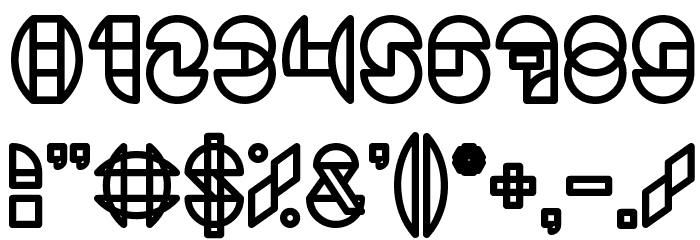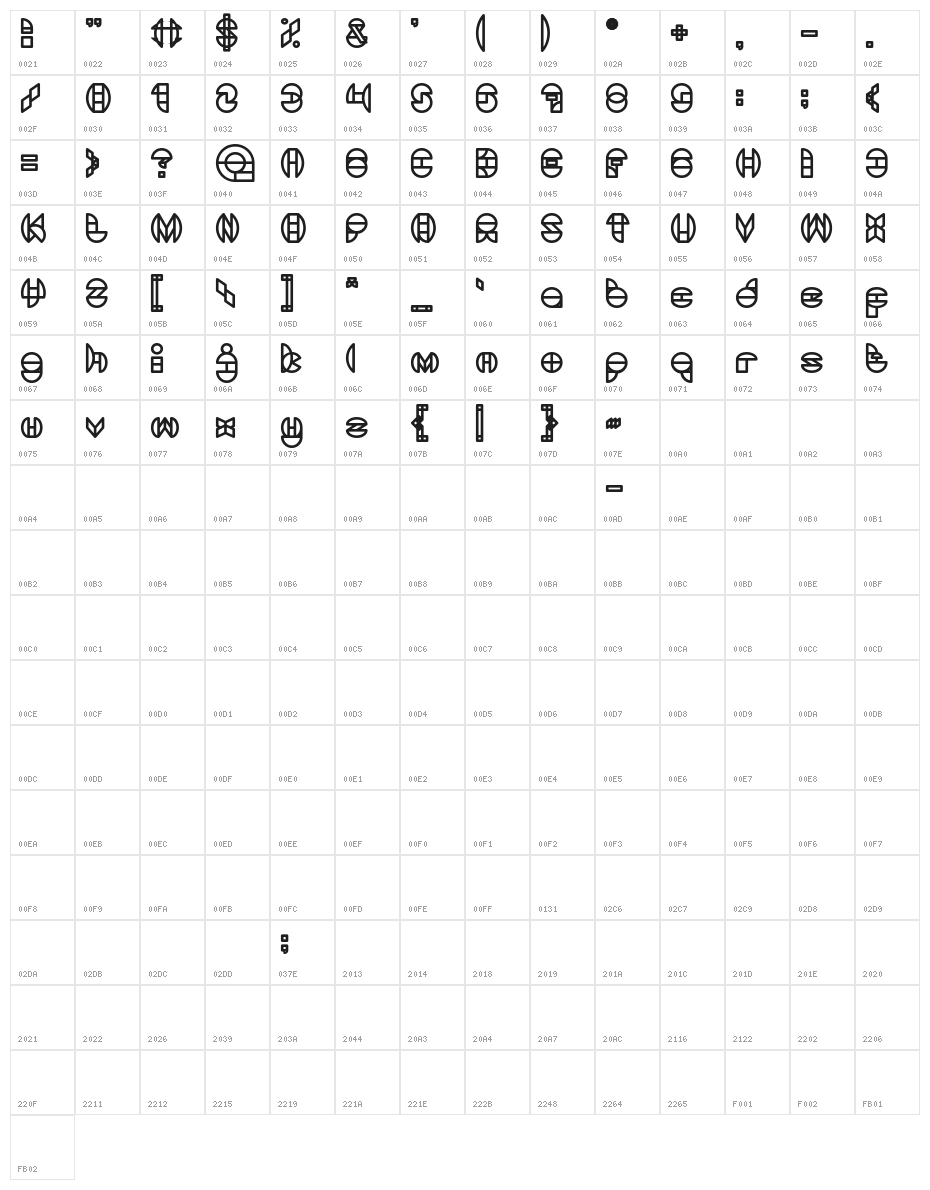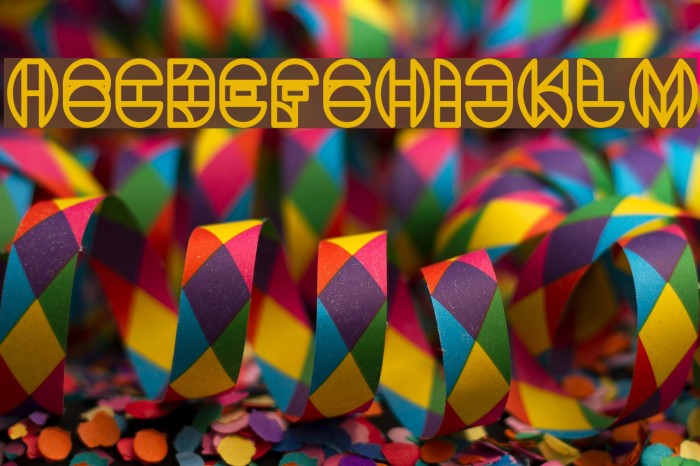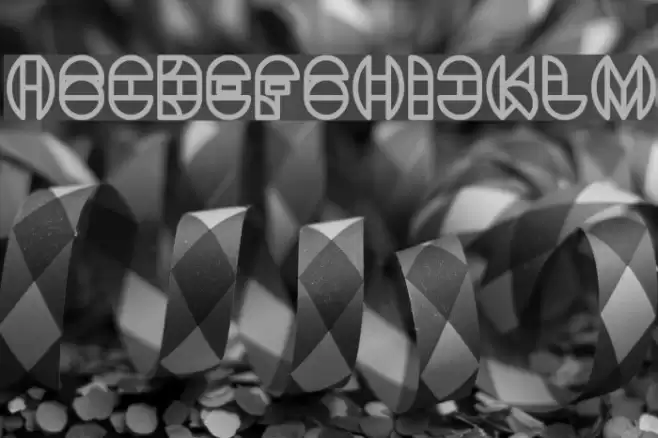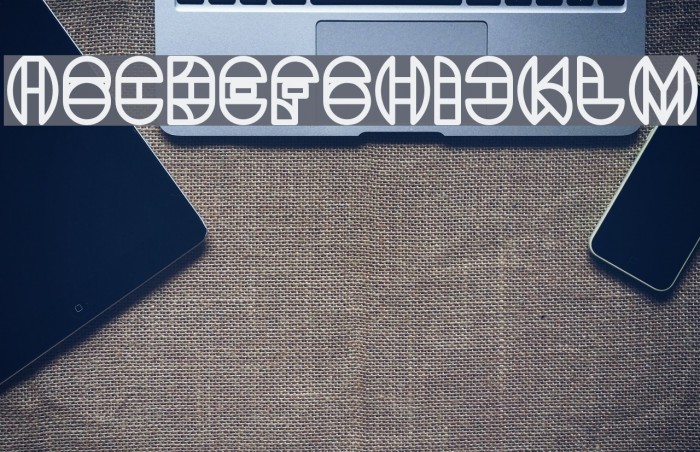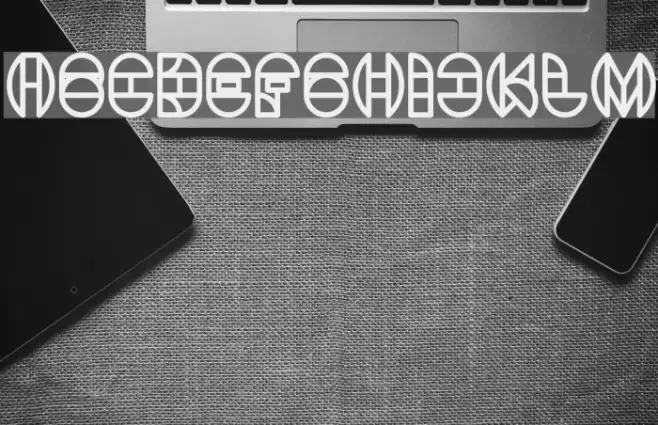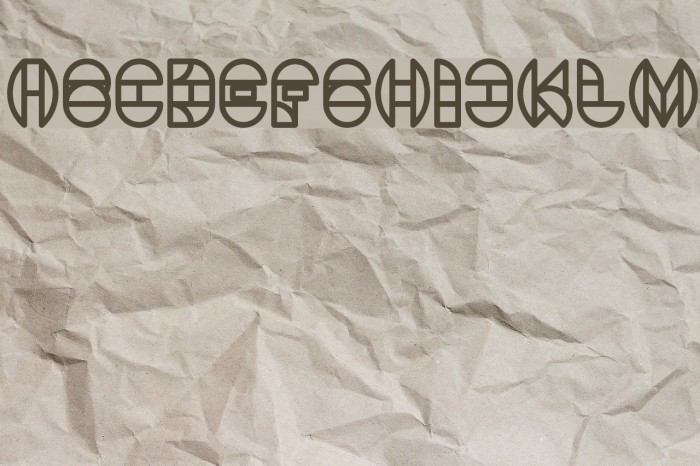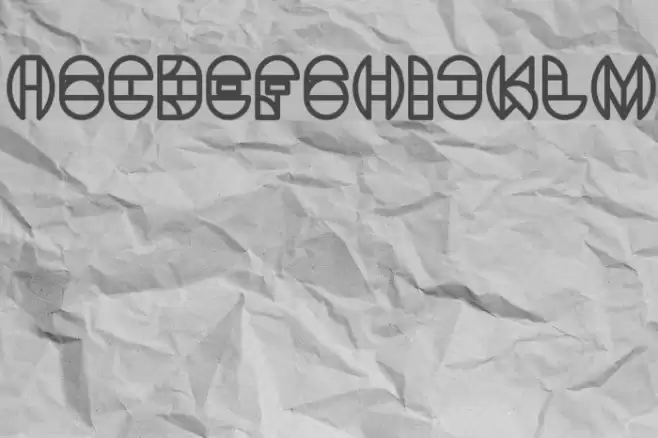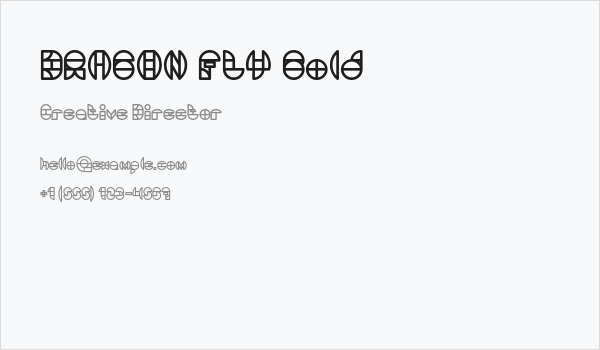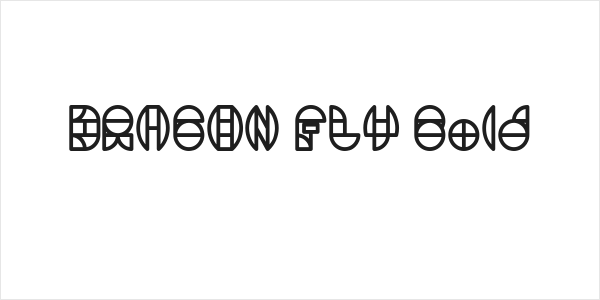
DRAGON FLY Bold Font
DRAGON FLY Bold Description
This font features a bold and geometric style with a unique, futuristic appearance. Each character is constructed with thick lines and circular elements, creating a sense of movement and modernity. The uppercase and lowercase letters maintain a consistent design, with some characters incorporating diagonal lines and angular shapes. Numbers and special characters follow the same design principles, ensuring a cohesive look across all glyphs. The font's distinctive style makes it stand out, ideal for projects that require a bold statement.
| Proposed Projects | Ideal for sci-fi themed projects, modern branding, logos, and eye-catching headlines. |